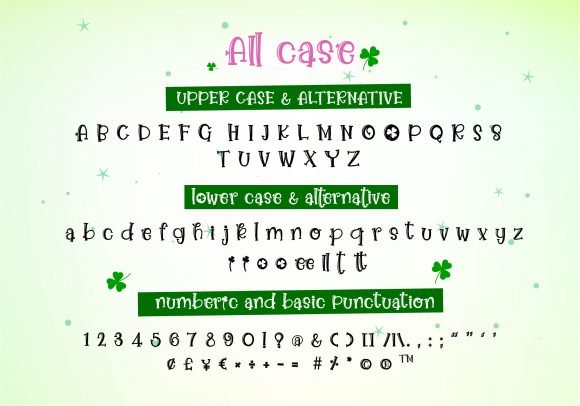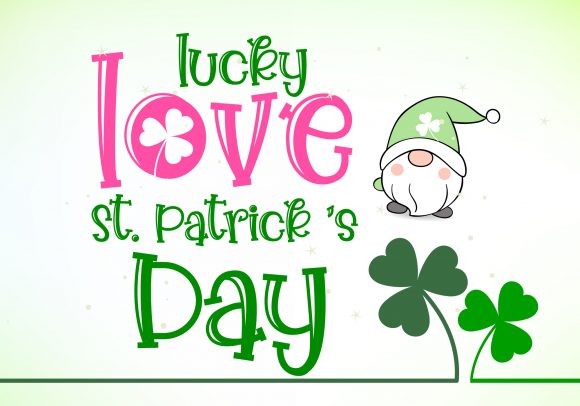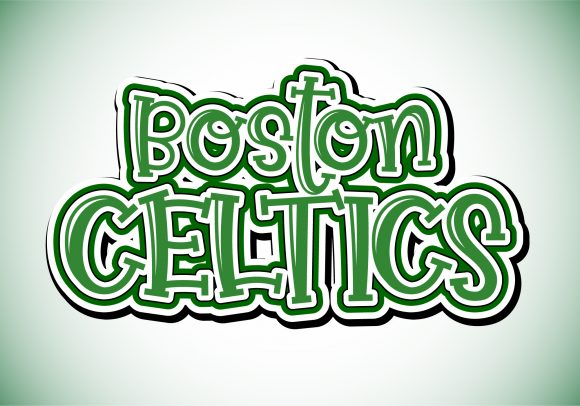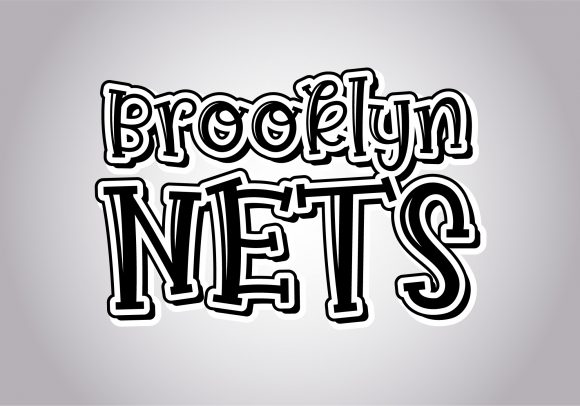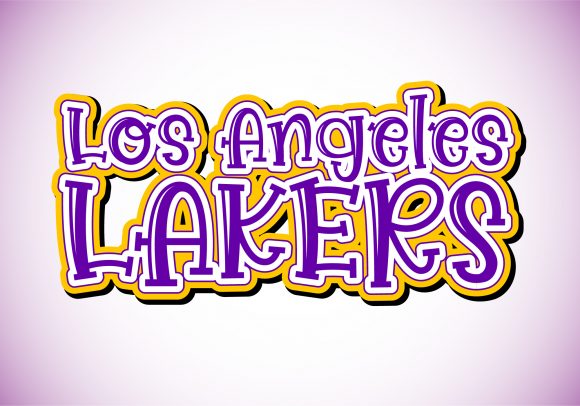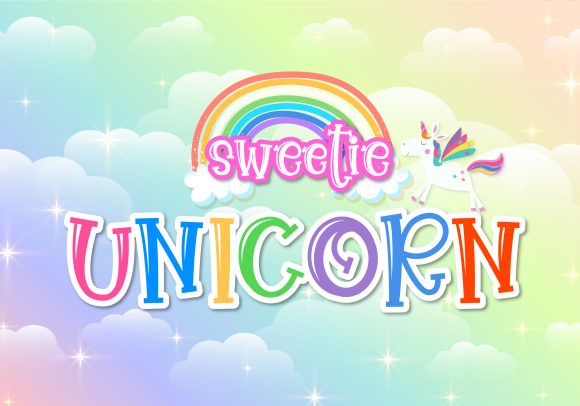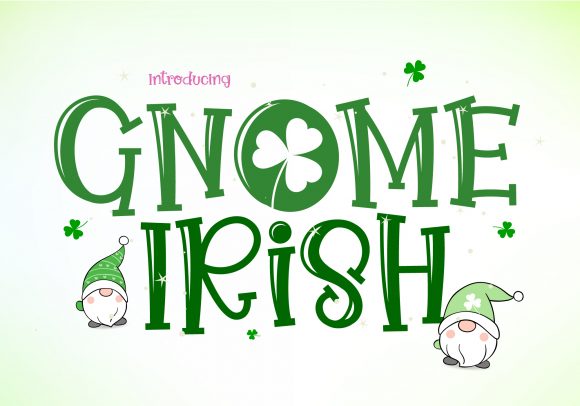
Gnome Irish Font: A Playful and Quirky Display Font
Are you tired of using the same old fonts in your designs? Look no further than the Gnome Irish Font, a playful and quirky display font that’s sure to elevate your creations. With its unique charm and versatility, this font is an incredibly valuable asset to any designer’s font library.
What is Gnome Irish Font?
Gnome Irish Font is a display font that’s perfect for headlines, titles, and other attention-grabbing elements in your designs. Its playful and quirky style is reminiscent of traditional Irish typography, but with a modern twist that makes it perfect for a wide range of projects.
Key Features of Gnome Irish Font
• Unique and Quirky Style: Gnome Irish Font has a one-of-a-kind style that’s sure to grab attention and add personality to your designs.
• Playful and Fun: This font is perfect for designs that require a lighthearted and playful touch, such as children’s products, party invitations, and more.
• Versatile: Despite its unique style, Gnome Irish Font is incredibly versatile and can be used for a wide range of projects, from logos and branding to packaging and advertising.
• Easy to Read: Despite its playful style, Gnome Irish Font is surprisingly easy to read, making it perfect for headlines and titles that need to be both eye-catching and legible.
What Can I Use Gnome Irish Font For?
Gnome Irish Font is an incredibly versatile font that can be used for a wide range of projects, including:
• Logos and Branding: Add a touch of personality to your logo or brand identity with this unique and quirky font.
• Headlines and Titles: Use Gnome Irish Font to create eye-catching headlines and titles that grab attention and add visual interest to your designs.
• Packaging and Advertising: This font is perfect for packaging and advertising projects that require a playful and attention-grabbing style.
• Children’s Products: Gnome Irish Font is a great choice for children’s products, such as toys, games, and books.
• Party Invitations: Add a touch of whimsy and fun to your party invitations with this playful font.
Why Should I Use Gnome Irish Font?
There are many reasons why Gnome Irish Font is a great choice for designers and crafters, including:
• Unique Style: This font has a one-of-a-kind style that’s sure to grab attention and add personality to your designs.
• Versatility: Gnome Irish Font can be used for a wide range of projects, making it a valuable asset to any designer’s font library.
• Easy to Read: Despite its playful style, this font is surprisingly easy to read, making it perfect for headlines and titles.
• Great for Kids’ Projects: Gnome Irish Font is a great choice for children’s products and projects that require a playful and fun style.
Tips and Tricks for Using Gnome Irish Font
• Experiment with Colors: Gnome Irish Font looks great in a variety of colors, so don’t be afraid to experiment and find the perfect hue for your design.
• Pair with Other Fonts: This font pairs well with a variety of other fonts, so try combining it with other styles to create a unique and interesting look.
• Use for Headlines and Titles: Gnome Irish Font is perfect for headlines and titles, so use it to add visual interest and personality to your designs.